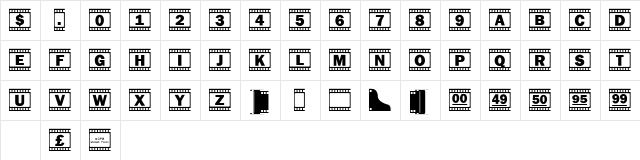
FilmStripWho Regular
Design Context for FilmStripWho Typeface
FilmStripWho offers clean, dependable letterforms without strong stylistic allegiance, making it a practical choice for designers who need flexibility.